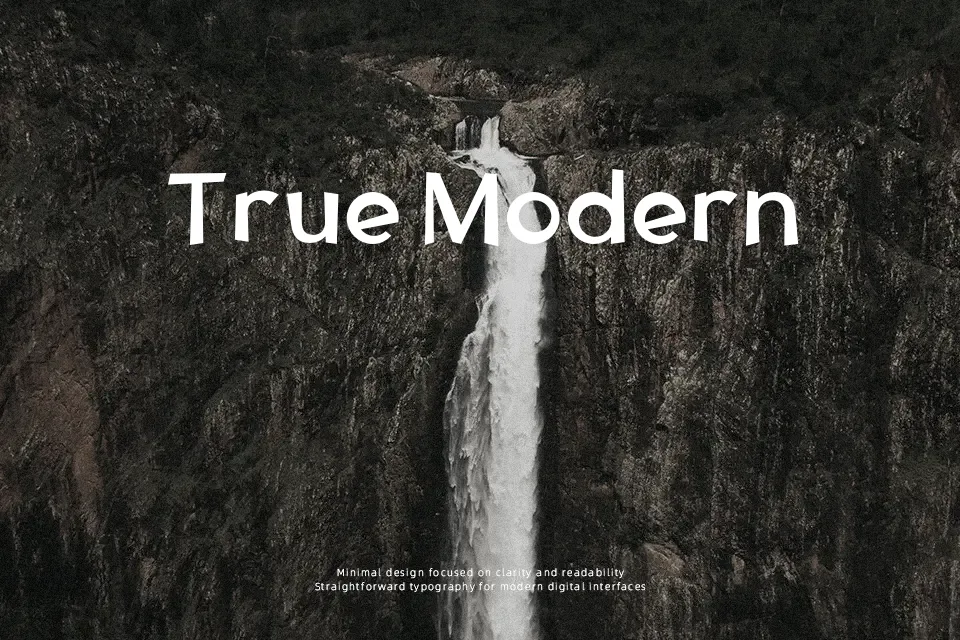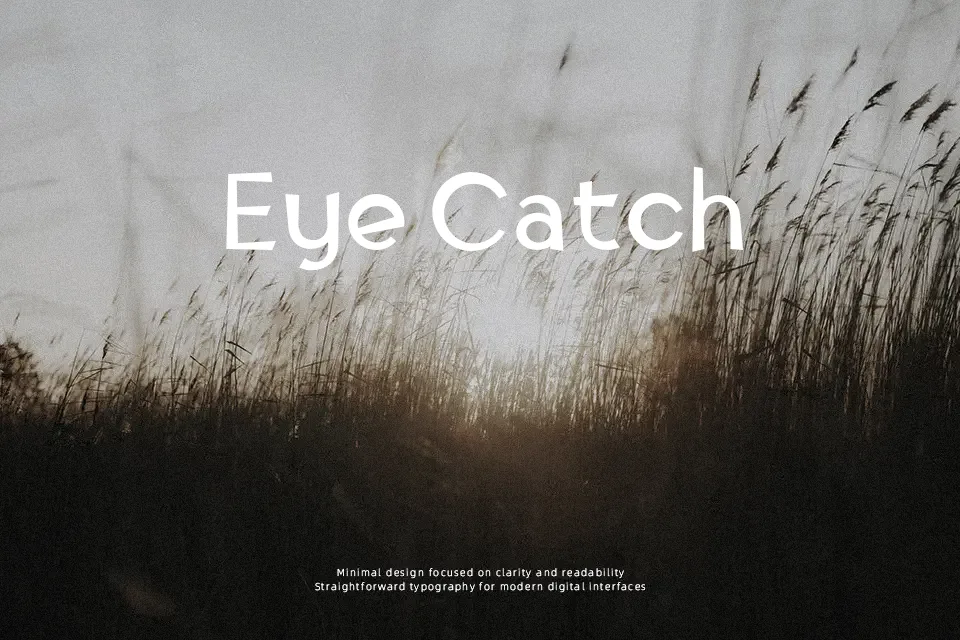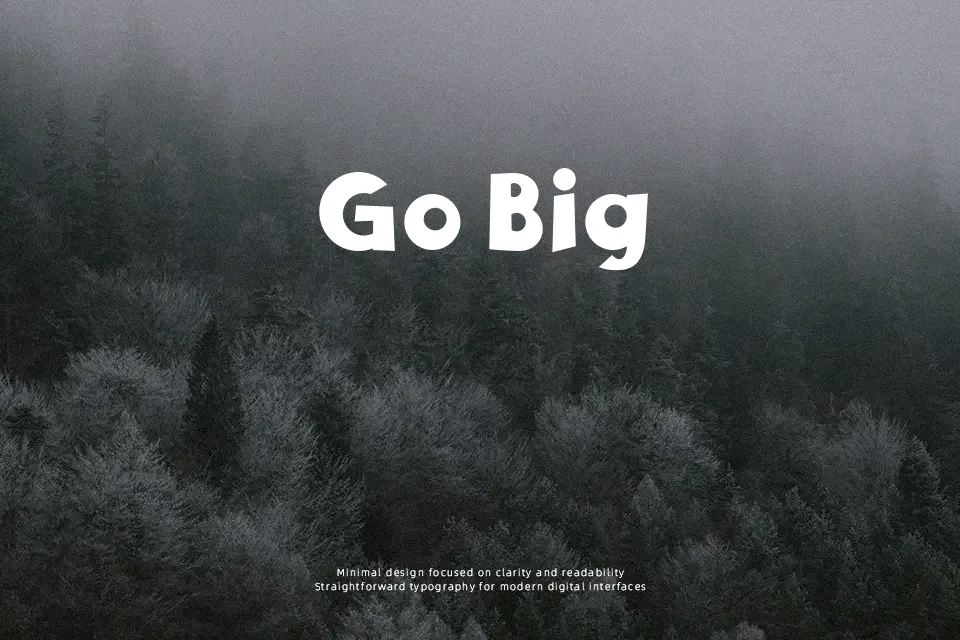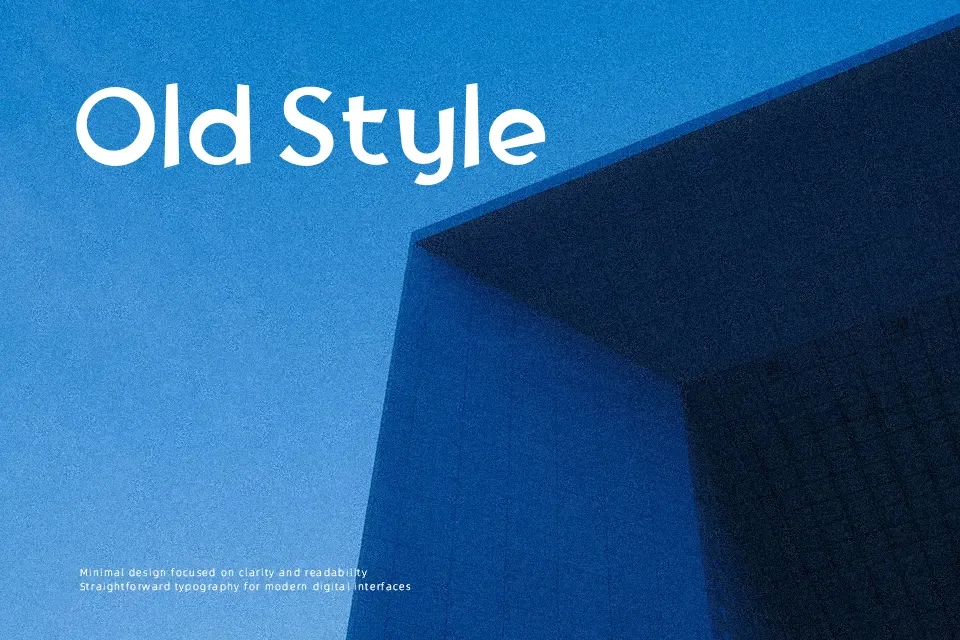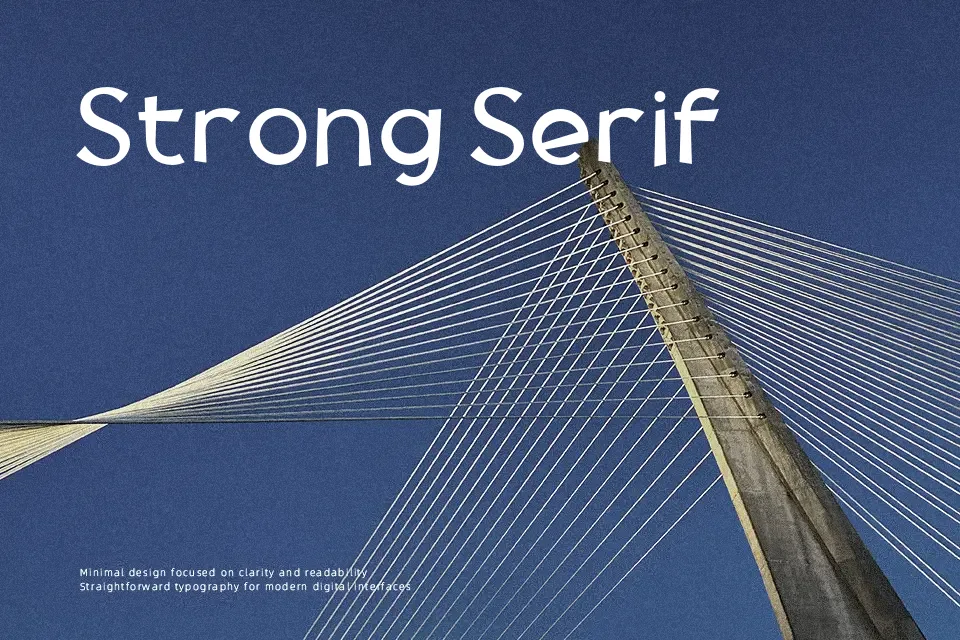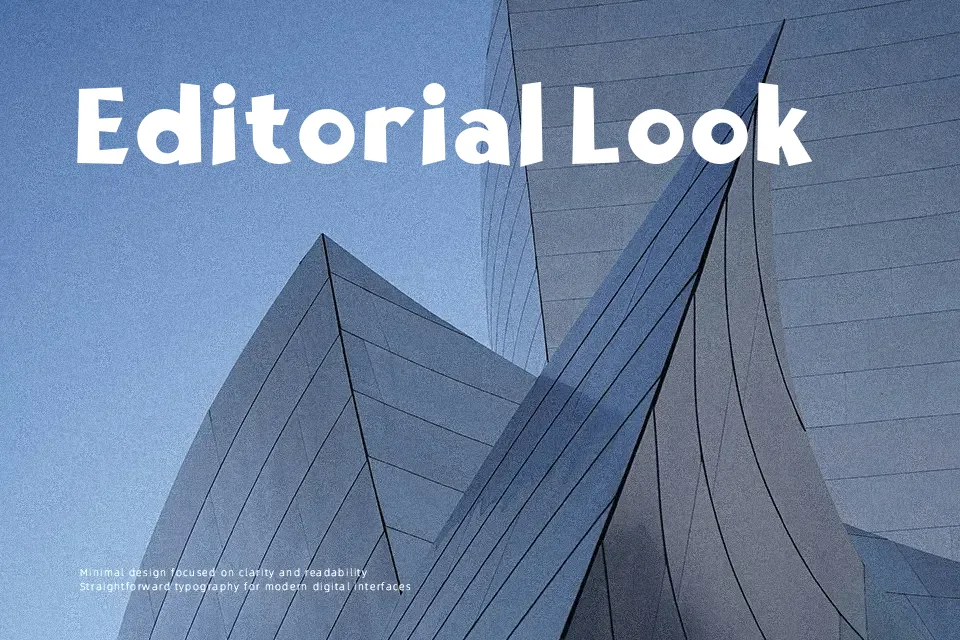
Tufuli Font
Designed by Namela Type
Tufuli Font showcases an exaggerated geometric foundation defined by thick, bulbous strokes and asymmetrical angled terminals. The letterforms maintain wide, squat proportions with tightly balanced spacing that keeps display settings visually cohesive. Substantial weight distribution gives the design striking headline presence, ensuring high legibility across large poster formats, casual game interfaces, and youth product labels. However, the narrow interior counters and heavy contours significantly diminish reading comfort within continuous paragraphs or compact digital captions. The typeface performs best when isolated in prominent, short text treatments where its quirky silhouettes can command attention without compromising functional clarity.
Best For: children’s book covers, toy packaging, animated title cards, casual game logos
Not Ideal For: long paragraph text, mobile app body copy, legal documents, dense editorial layouts